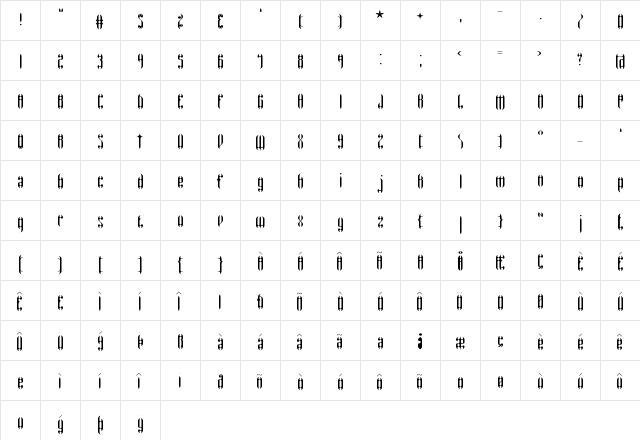
Wyvern Wings BRK Normal
| Foundry | ƎIGMA FONTS |
| Designer | ƎIGMA FONTS - Brian Kent |
Design Context for Wyvern Wings BRK Typeface
Wyvern Wings BRK is a composed and adaptable typeface that performs quietly and consistently across a wide range of design contexts.